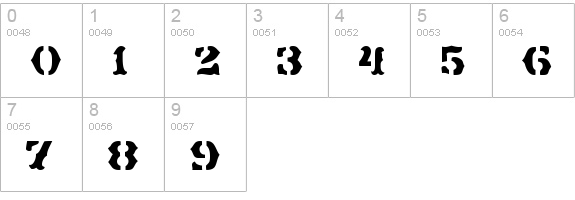
Maverick JL Font Details
Maverick JL is a modern and stylish font that exudes confidence and creativity. Its sleek lines and sharp angles give it a unique edge, making it perfect for a wide range of design projects. Whether you're working on a logo, branding materials, or any other creative endeavor, Maverick JL is sure to make a bold statement. What sets Maverick JL apart is not only its striking design but also the fact that it is available for free download at FontsMarket.com. This means that you can easily access this high-quality font without any cost, making it an excellent choice for both professional designers and hobbyists alike. With its versatility and eye-catching appeal, Maverick JL is a must-have font for anyone looking to add a touch of modern sophistication to their projects. Download it for free today and see how it can elevate your designs to the next level.